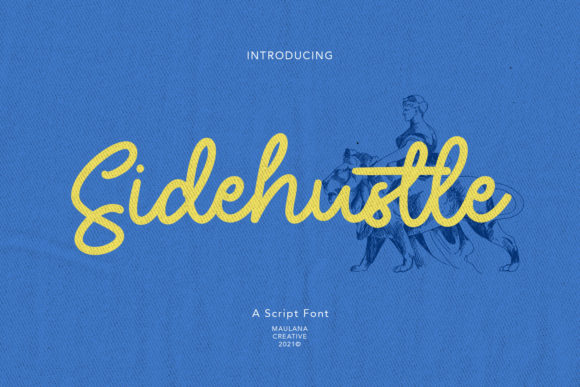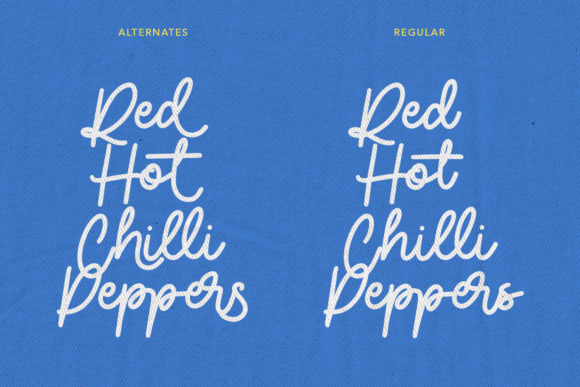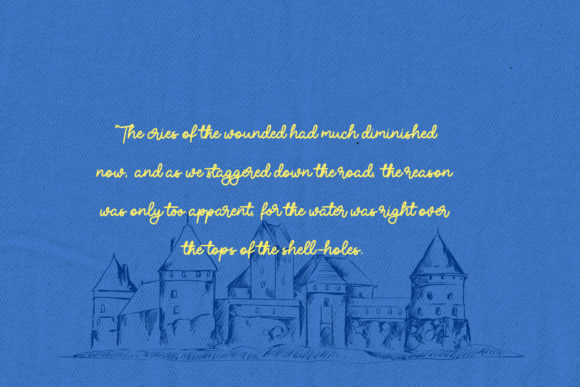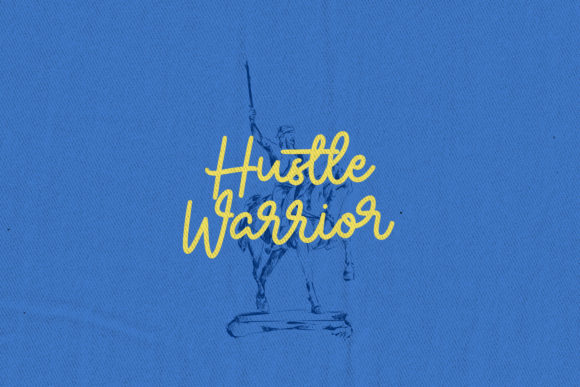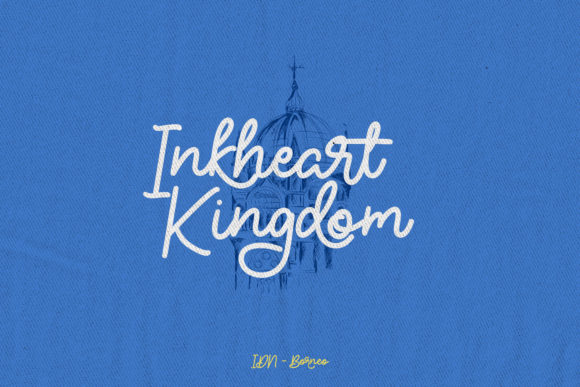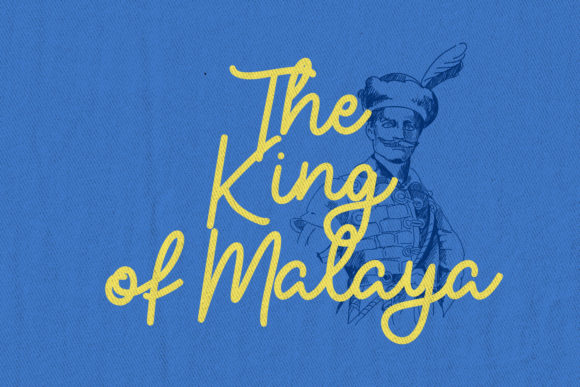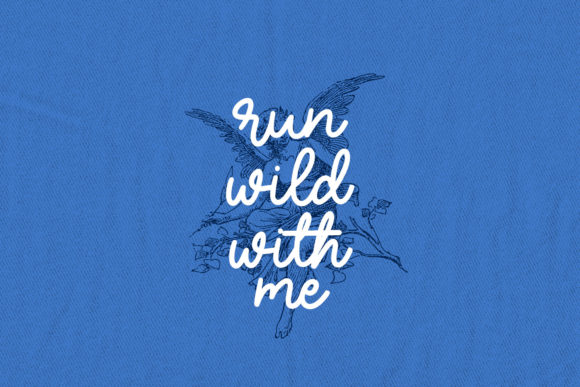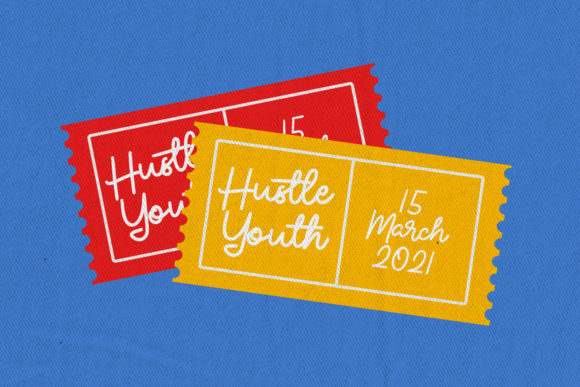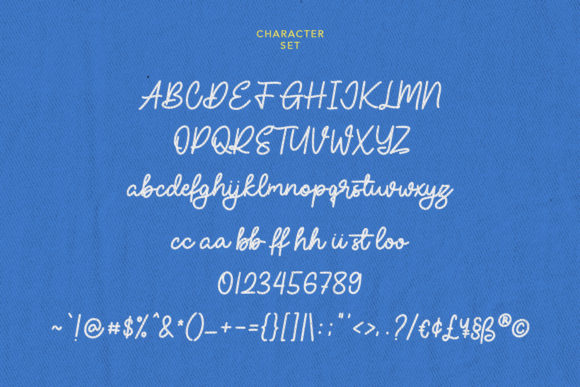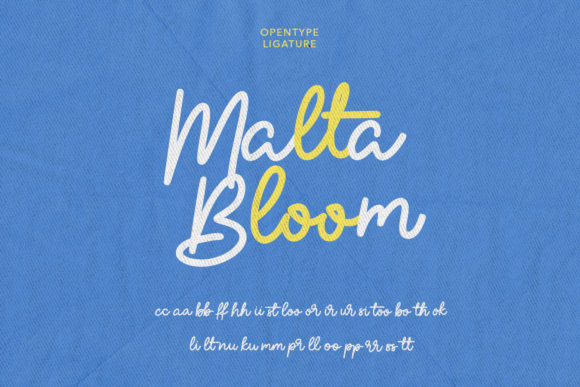
About Sidehustle Font
Sidehustle is a well balanced and vintage styled handwritten font. It is defined by smooth curves and is perfect for fashion branding or editorial designs. Add it confidently to your projects, and you will love the results.